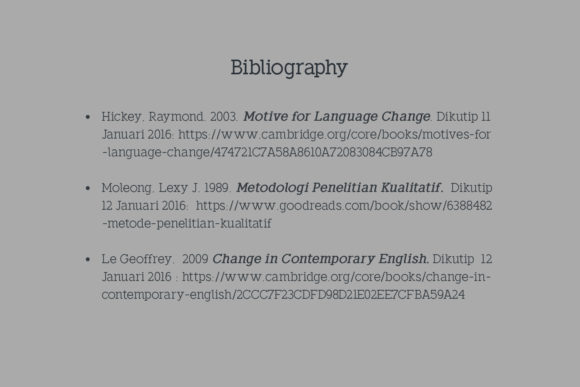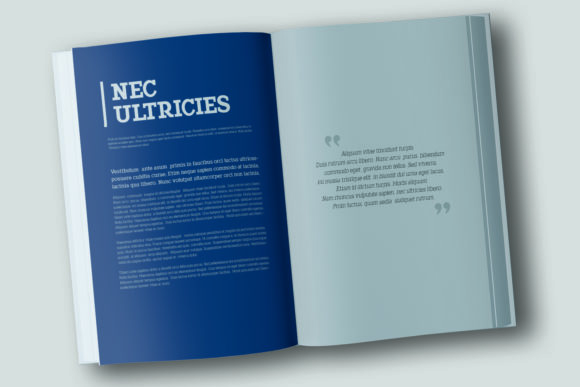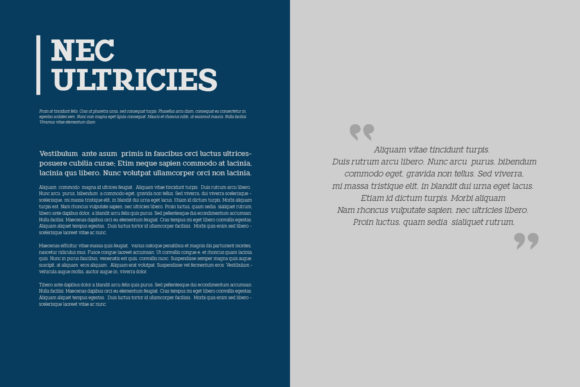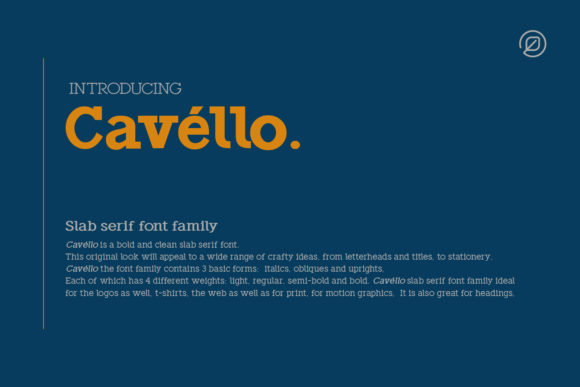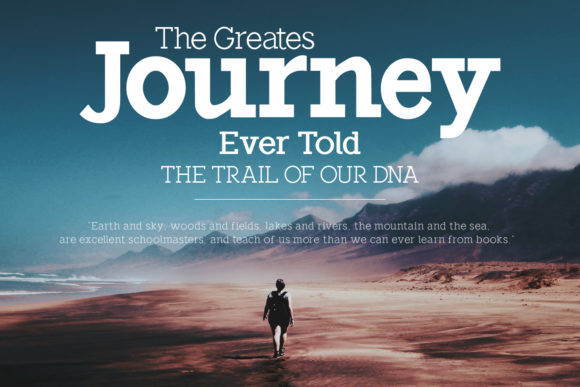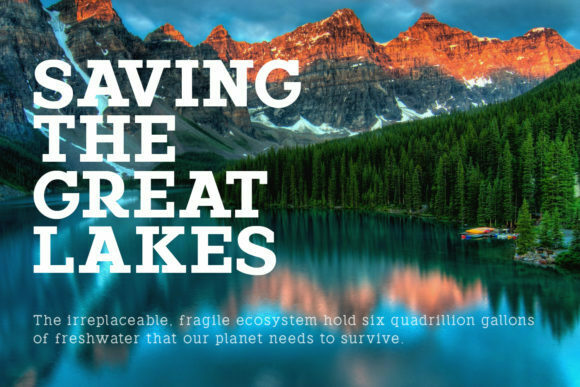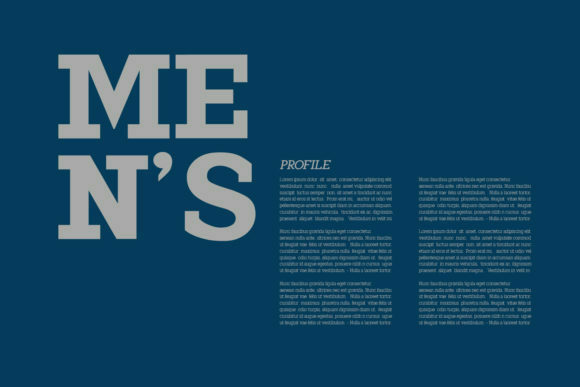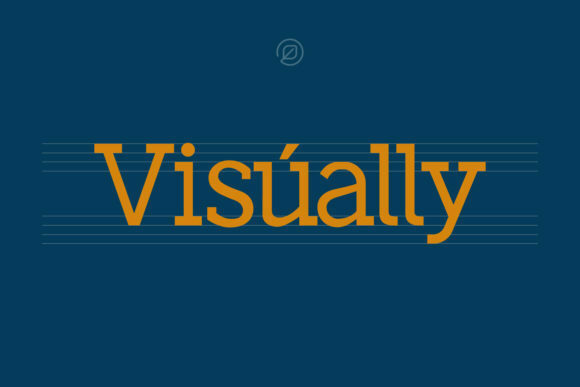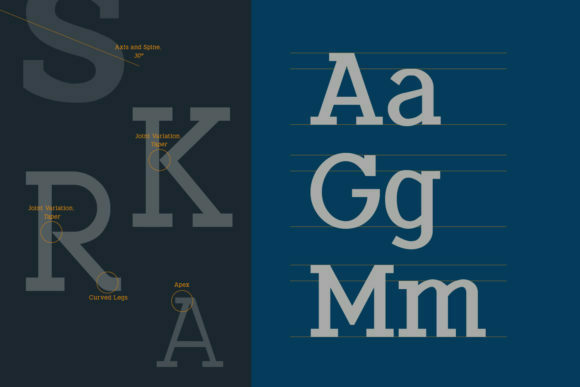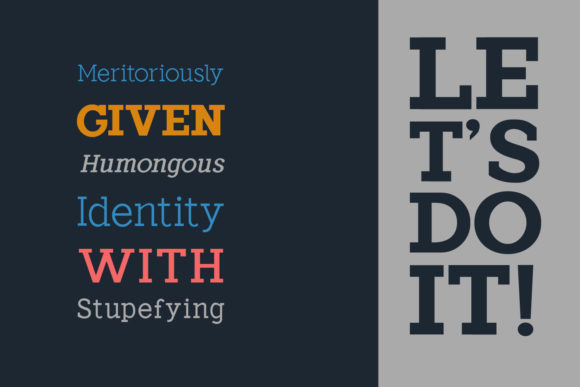
Cavéllo Font
CAVÉLLO FONT SPECIMEN
Cavéllo is a bold and clean slab serif font. This original look will appeal to a wide range of crafty ideas, from letterheads and titles, to stationery.
Cavéllo the font family contains 3 basic forms: italics, obliques and uprights, each of which has 4 different weights: light, regular, semi-bold and bold.
Cavéllo slab serif font family ideal for the logos as well, t-shirts, the web as well as for print, for motion graphics, It is also great for headings.